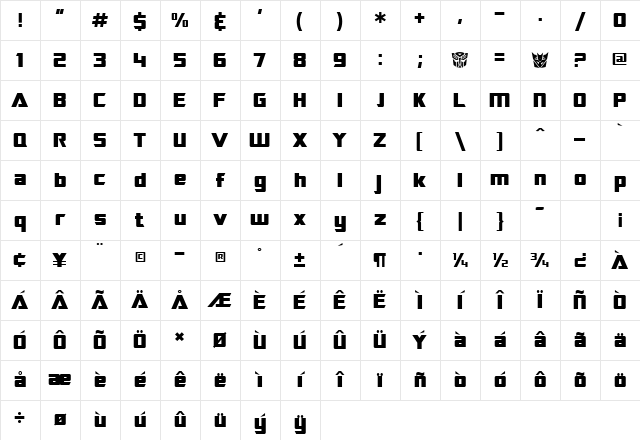
SF TransRobotics Regular Free Font
SF TransRobotics Regular
Design Context for SF TransRobotics
SF TransRobotics is a composed and adaptable typeface that performs quietly and consistently across a wide range of design contexts.